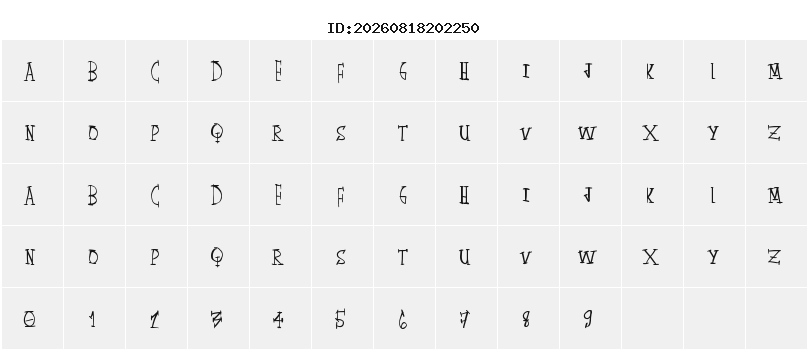
SkateAround Preview
• Font Name: SkateAround
• Designer: Max Infeld
• Manufacturer: Xerographer Fonts
• Description: handwritten serif grunge poster header made in chico,ca twin palms